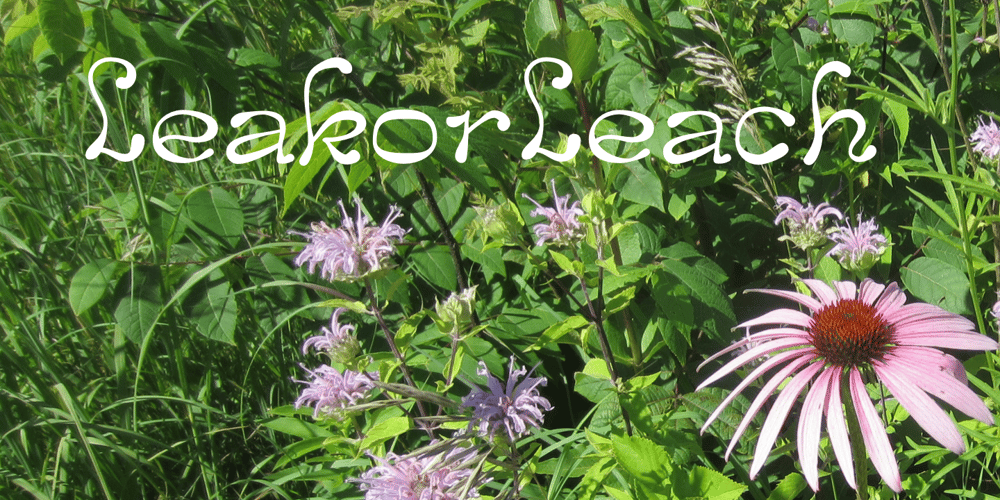
LeakorLeach Font Family was designed by Robert Schenk and published by Ingrimayne Type. LeakorLeach contains 6 styles and family package options. An early drawing tablet was largely responsible for the LeakorLeach typefaces. They resemble hand lettering using cake icing or done with an ink pen that leaves lots of ink blobs or ink blots. The family has two widths, plain and condensed, and in addition to each having an oblique style, each also has a leftward-inclined style. There may not be many uses for a leftward-inclined typeface, but for those needing one, the LeakorLeach family offers two.The LeakorLeach typefaces are unlike any other faces from IngrimayneType.